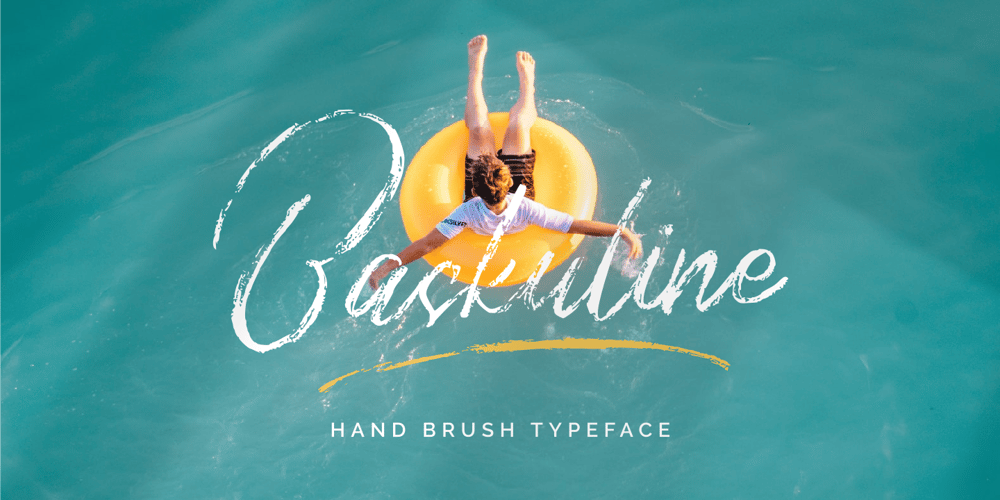
Baskuline
Baskuline font
Baskuline Font Family was designed by Zeenesia Studio and published by Zeenesia Studio. Baskuline contains 1 styles and family package options. Introducing the new font Baskuline.Baskuline font is a HanwrittenHandbrush handwriting on paper with a coarse type brush, to produce a consistent texture. Baskuline also has ligature which is very suitable if you don’t really like lowercase letters and want to change some letters with available ligature letters. and available lowercase alternatives that you can change according to your taste.Baskuline suitable for various projects such as stationery invitations, social media, logos, weddings, branding, graphic design with the addition of several binders and swashes. and can be combined with various types of serif fonts to perfect the project you want to work on.We hope you enjoy the font, please feel free to comment if you have any thoughts or feedback. Or simply send me a PM or email me at zeenesia@gmail.com.Thanks for purchasing and have fun!